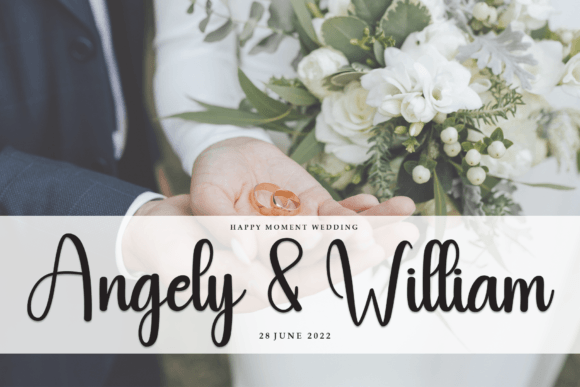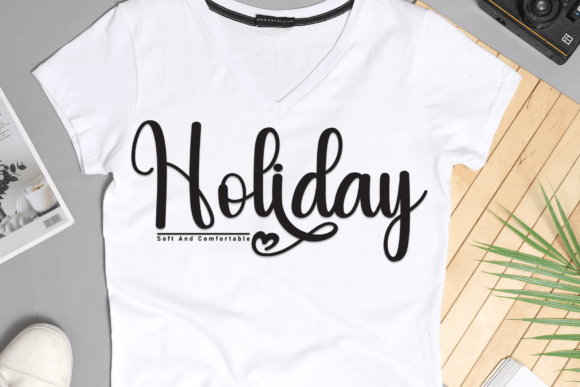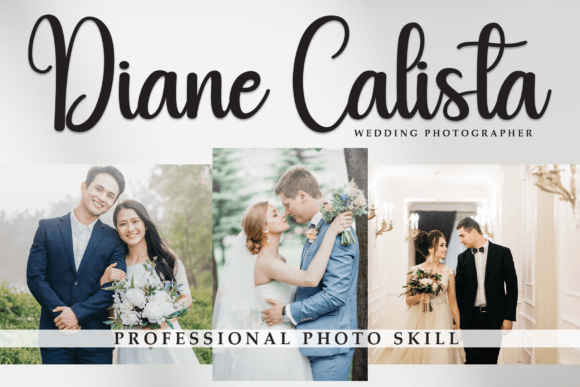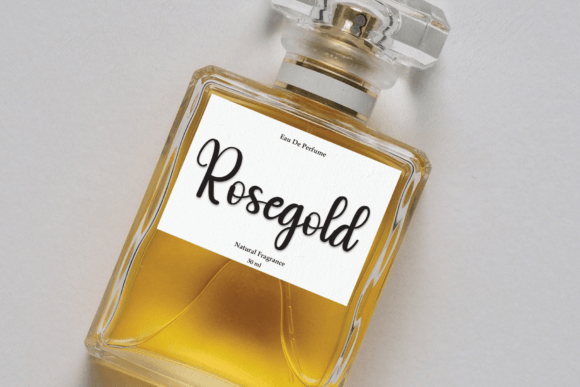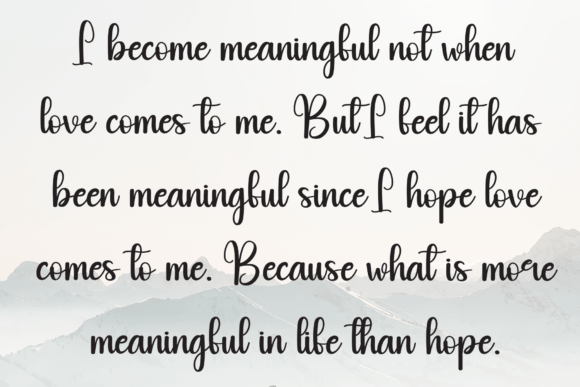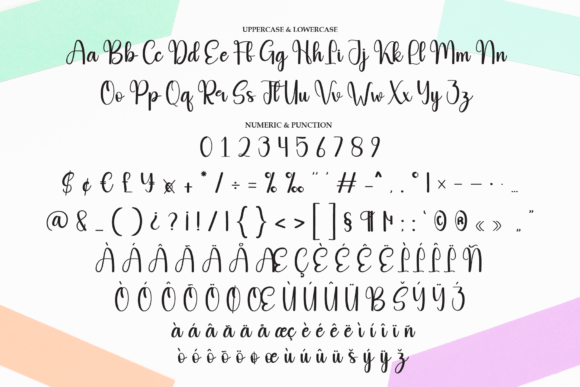
Introduction to Multiple Font
As a designer, there’s nothing quite like the thrill of bringing a creative project to life. You’re brainstorming ideas, experimenting with different layouts, and searching for that perfect design element to tie everything together. And then, it happens – you stumble upon a font that’s just too cute to resist. For many designers, that font is Multiple, a sweet and friendly handwritten display font that’s perfect for adding a fun touch to any design.
Whether you’re working on a wedding invitation, a birthday card, or any other creative project, Multiple Font is a valuable resource that can elevate your design and make it stand out. With its high quality and versatility, this font is a must-have for any designer looking to add a personal touch to their work.
Key Features of Multiple Font
- High-quality font designs with transparent backgrounds, perfect for creative projects.
- Each font is meticulously crafted to ensure crisp and clear readability, even at high resolutions.
- Unique and creative font designs that will elevate your creative project to the next level.
Honest Review: Multiple Font
As a designer, I’m always on the lookout for high-quality design resources that can help elevate my creative projects. In my search, I stumbled upon Multiple Font, and I must say, it’s been a game-changer for me.
- ✨ Large collection of fonts: Multiple Font boasts an impressive collection of fonts that can cater to any design project.
- ✨ High-quality fonts: The fonts are of the highest quality, ensuring that my designs look professional and polished.
- ✨ Transparent background: The fonts come with a transparent background, making it easy to work with and customize.
While Multiple Font is an excellent resource, I do have a few limitations to note:
- ⚠️ Limited customization options: While the fonts are high-quality, I found that there are limited customization options available.
Overall, I’m really impressed with Multiple Font. It’s a fantastic design resource that can help designers like me create stunning and professional designs. With its large collection of high-quality fonts and free download option, it’s definitely worth checking out.
Introduction to Multiple Font
Multiple Font is a versatile design resource that allows you to create visually appealing and unique visual elements for your creative projects. With its high quality and transparent background, you can easily customize it to fit your design needs.
Tips for Getting the Most Out of Multiple Font
1. Experiment with different font styles and colors to create unique visual effects.
2. Use the transparent background feature to create a seamless design.
Common Use Cases for Multiple Font
1. Social media graphics and posts
2. Website headers and footers
3. Print materials and brochures
4. Presentations and slideshows
Yes, Multiple Font is designed with a transparent background, making it perfect for creative projects that require a seamless integration with other design elements. You can easily use the font on any background without worrying about any unwanted fill or color.